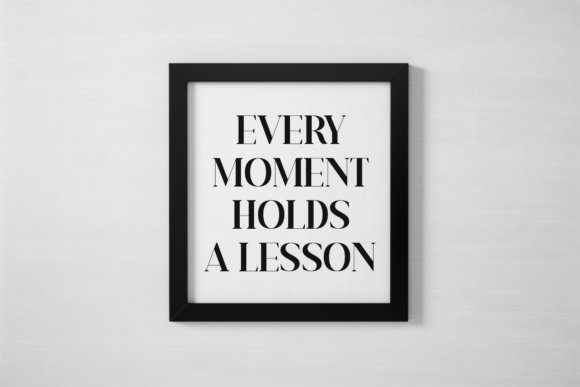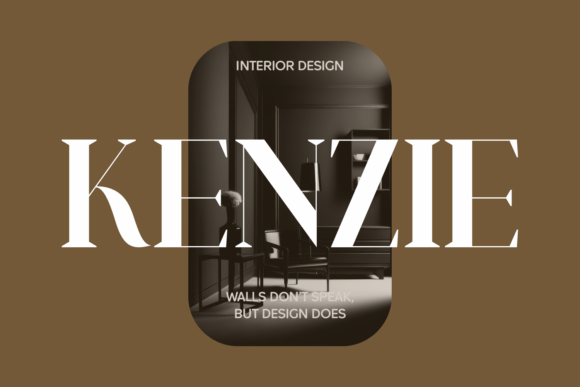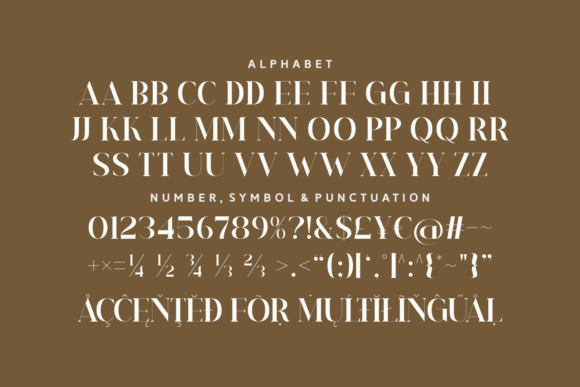
Introduction to Feeling Design Font
Feeling Design is a striking modern serif font with sharp lines, clean curves, and a stylish editorial flair.
Designed to command attention in magazines, websites, lookbooks, and brand presentations, this typeface exudes sophistication and structure It’s ideal for designers looking to elevate their visuals with a serif font that feels current, premium, and highly versatile.
Key Features of Feeling Design Font
Why Choose Feeling Design Font?